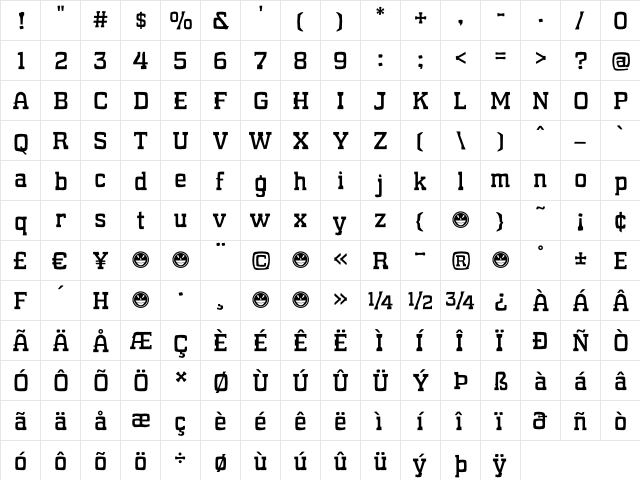
WHAT SOUND POUNDS? Regular
| Foundry | The Fontry |
| Designer | Mike Adkins @ The Fontry |
Design Context for WHAT SOUND POUNDS? Typeface
WHAT SOUND POUNDS? takes a measured approach to typography — its balanced proportions and neutral character make it a reliable workhorse for both digital and print work.